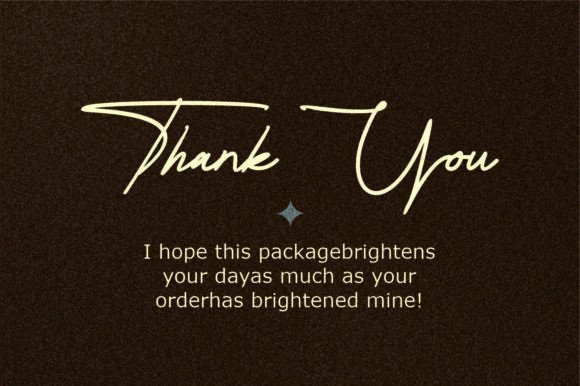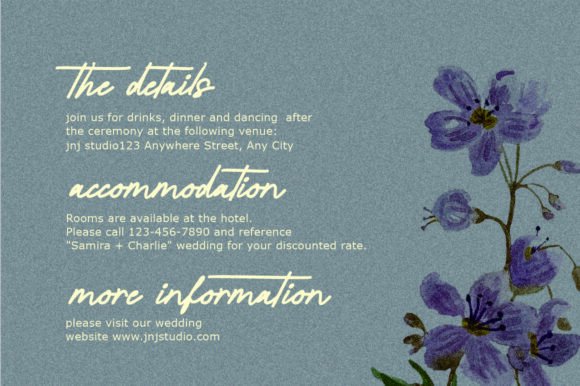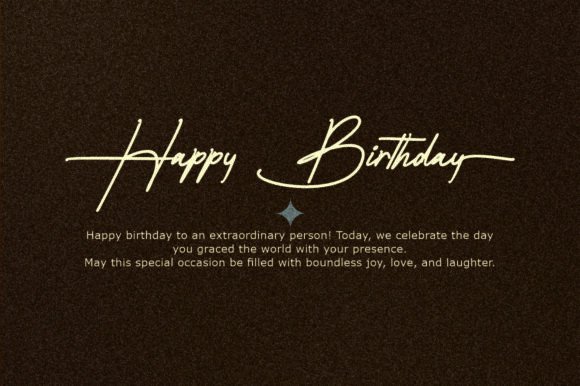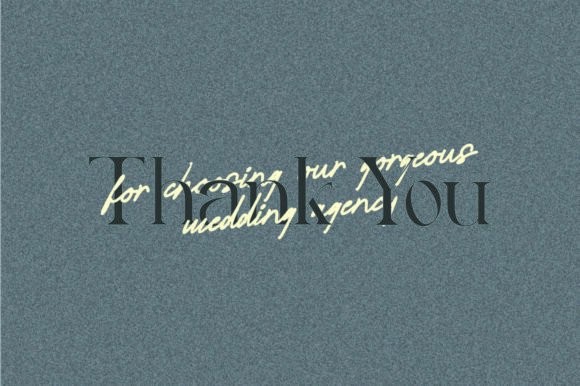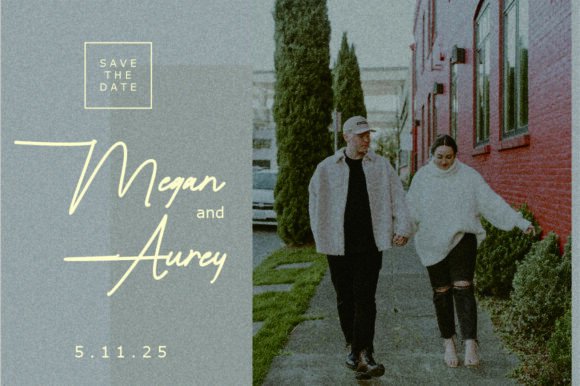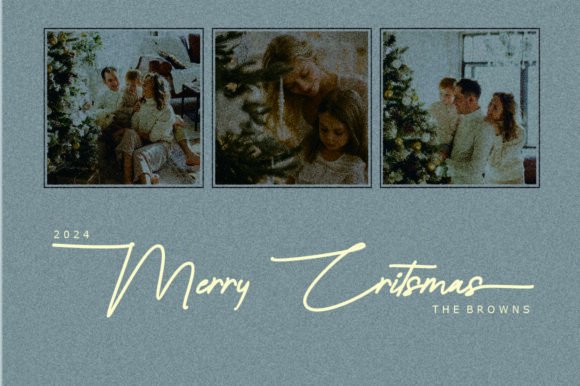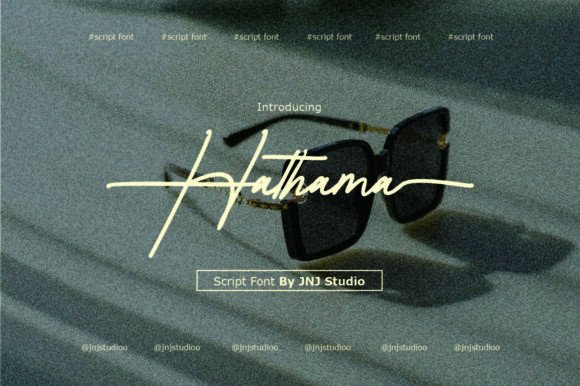
Discover the Charm of Hathama Font: Elevate Your Designs with a Personal Touch
In the world of digital design, typography plays a crucial role in conveying messages, evoking emotions, and creating a lasting impression. Among the myriad of fonts available, Hathama stands out as a beautifully crafted handwritten font that exudes warmth, charm, and a personal touch. Its organic, free-flowing strokes mimic the natural motion of a pen, giving your designs an authentic and heartfelt feel.
The Unique Characteristics of Hathama Font
Hathama is more than just a font; it’s a design element that brings a human touch to your projects. Here are some of its key features that make it a must-have for designers and crafters:
- Smooth Curves and Natural Imperfections: Hathama captures the essence of handwriting with its smooth curves and natural imperfections. This gives your text a genuine, handwritten feel that resonates with readers.
- Versatility with Uppercase and Lowercase Letters: The font features both uppercase and lowercase letters, offering enhanced customization options. This versatility allows you to create dynamic and engaging text that suits various design needs.
- Clean yet Artistic Style: Hathama boasts a clean yet artistic style that pairs well with both modern and classic aesthetics. This makes it an excellent choice for a wide range of projects, from casual social media posts to elegant invitations.
Ideal Applications for Hathama Font
Hathama’s unique characteristics make it suitable for various design projects that require a personal or creative edge. Some of the ideal applications for Hathama include:
- Invitations: Whether it’s a wedding invitation, birthday party invite, or any other special occasion, Hathama adds a touch of warmth and personality to your designs.
- Branding: Use Hathama to create a distinctive brand voice that stands out from the crowd. Its unique charm can help you establish a strong brand identity.
- Social Media Posts: Elevate your social media content with Hathama’s engaging and authentic feel. It’s perfect for creating posts that resonate with your audience.
- Quotes and Typography: Hathama’s elegant strokes and natural imperfections make it an excellent choice for showcasing quotes, sayings, and typography-focused designs.
Why Choose Hathama Font?
In a world where digital designs often lack a personal touch, Hathama font offers a refreshing alternative. Here are some reasons why designers and crafters prefer Hathama:
- Authentic Handwritten Feel: Hathama’s organic strokes and natural imperfections give your designs an authentic handwritten feel that sets them apart.
- Ease of Use: The font is easy to read and works well in various design contexts, making it a versatile addition to your typography collection.
- Customization Options: With both uppercase and lowercase letters, Hathama offers ample opportunities for customization to suit your design needs.
Tips for Using Hathama Font Effectively
To make the most of Hathama font, consider the following tips:
- Pair with Complementary Fonts: Combine Hathama with other fonts that complement its style to create visually appealing designs.
- Experiment with Colors: Try Hathama with different colors to find the perfect match for your design theme.
- Use for Emphasis: Use Hathama to draw attention to key messages or quotes in your designs.
| Author | JNJ studio |
Hathama font is a beautifully crafted handwritten font that brings a personal touch to your designs. Its organic strokes, smooth curves, and natural imperfections make it an excellent choice for projects that require a creative edge. Whether you’re designing invitations, branding materials, social media posts, or quotes, Hathama adds a touch of warmth and sophistication to your text. Let your words flow naturally with Hathama and elevate your designs to new heights.